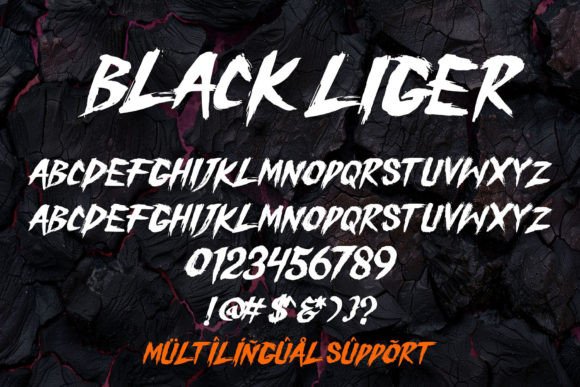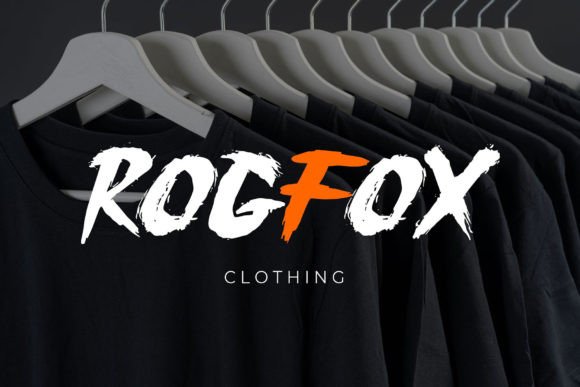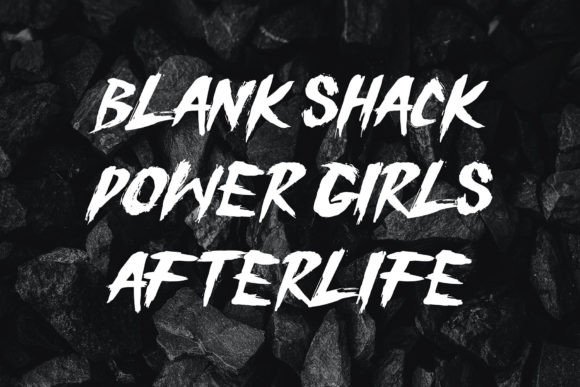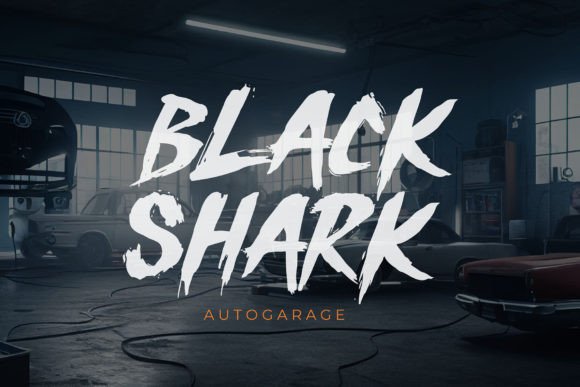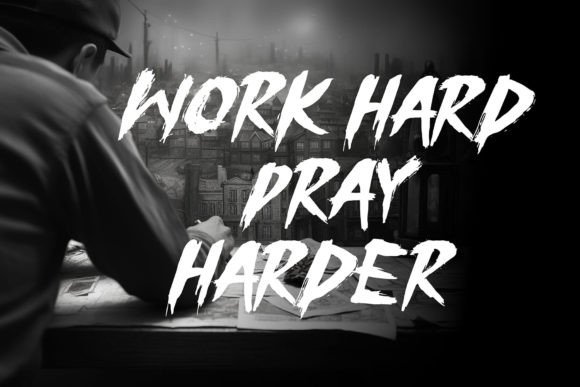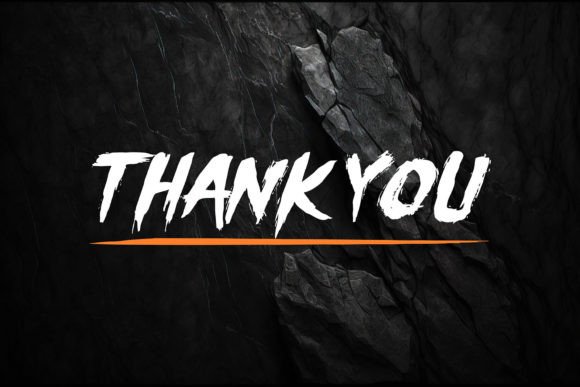
Unleash the Artistry of Words with Black Liger Font
In the realm of typography, few fonts manage to capture the essence of artistry and sophistication as effortlessly as the Black Liger Font. This exquisitely crafted handwritten brush script font is a masterpiece that brings together the fluidity of organic brush strokes and the elegance of hand lettering. The result is a font that is not only visually stunning but also incredibly versatile, making it the perfect tool for designers and crafters looking to add a signature touch to their creations.
The Harmony of Organic and Sophisticated
Black Liger Font is a celebration of the harmonious blend of organic brush stroke fluidity and the sophistication of hand lettering. Each character is carefully crafted to exude a sense of creativity and singularity, making it an ideal choice for projects that require a bold and polished look. Whether you’re designing an invitation, logo, poster, or branding materials, Black Liger Font promises to accent your text with a statement look that is both eye-catching and remarkable.
Lively and Expressive Characters
One of the standout features of Black Liger Font is its lively and expressive characters. Each letter is infused with a sense of energy and movement, making it perfect for designs that require a dynamic and creative touch. The font’s characters are also highly legible, ensuring that your message is conveyed clearly and effectively. Whether you’re designing for print or digital media, Black Liger Font is sure to make your text stand out.
Black Liger Font is an incredibly versatile font that can be used for a wide range of design projects. Here are just a few examples of how you can use this beautiful font:
• Invitations: Add a touch of elegance and sophistication to your invitations with Black Liger Font. Perfect for weddings, birthdays, and other special occasions.
• Logos: Create a bold and memorable logo for your business or brand with Black Liger Font. Its unique and expressive characters are sure to make your logo stand out.
• Posters: Add a creative and eye-catching touch to your posters with Black Liger Font. Perfect for advertising, promotions, and other marketing materials.
• Branding: Use Black Liger Font to create a consistent and recognizable brand identity. Its sophisticated and elegant look is sure to make your brand stand out.
Experience the Quintessence of Artisan Typography
Black Liger Font is more than just a font – it’s an experience. With its exquisite craftsmanship and attention to detail, this font is sure to transport you to a world of artistry and creativity. Whether you’re a designer, crafter, or simply someone who appreciates the beauty of typography, Black Liger Font is sure to inspire and delight.
Make Your Designs Remarkable
In a world where design is everywhere, it’s easy to get lost in the noise. But with Black Liger Font, you can create designs that are not just eye-catching, but truly remarkable. Its unique and expressive characters are sure to make your text stand out, while its sophisticated and elegant look will elevate your designs to new heights.
In conclusion, Black Liger Font is a truly exceptional font that is sure to unleash the artistry of words in your designs. With its harmonious blend of organic brush stroke fluidity and sophistication, lively and expressive characters, and versatility, this font is perfect for designers and crafters looking to add a signature touch to their creations. So why settle for ordinary typography when you can experience the quintessence of artisan typography with Black Liger Font?